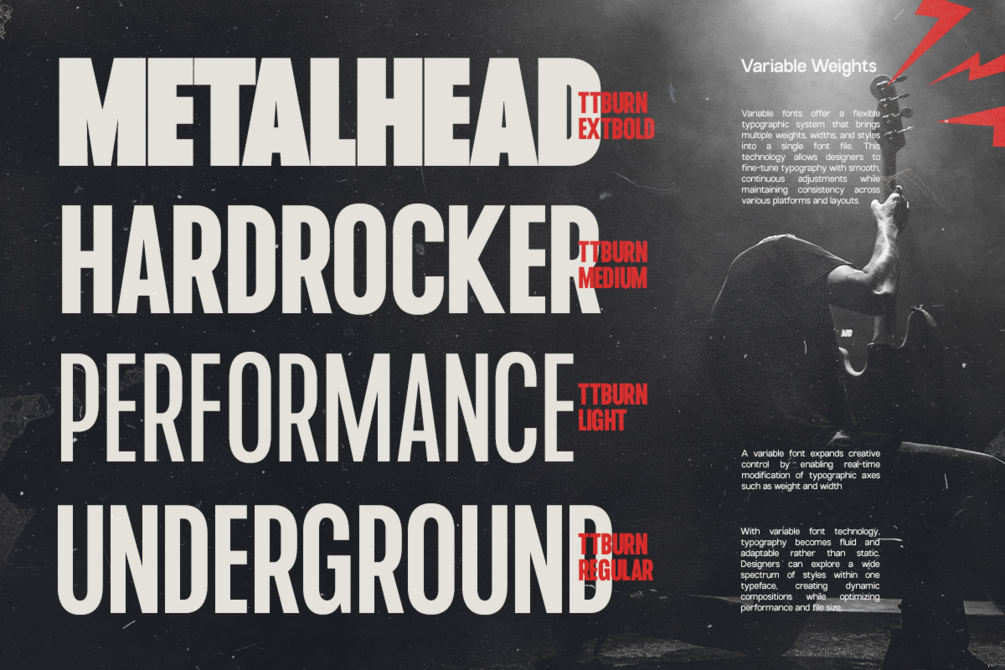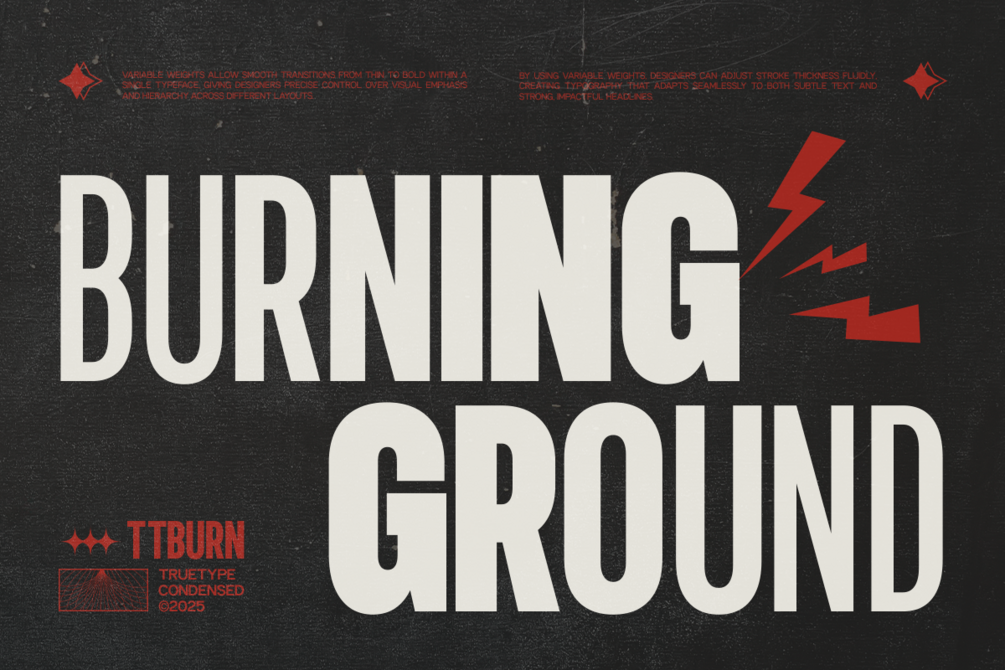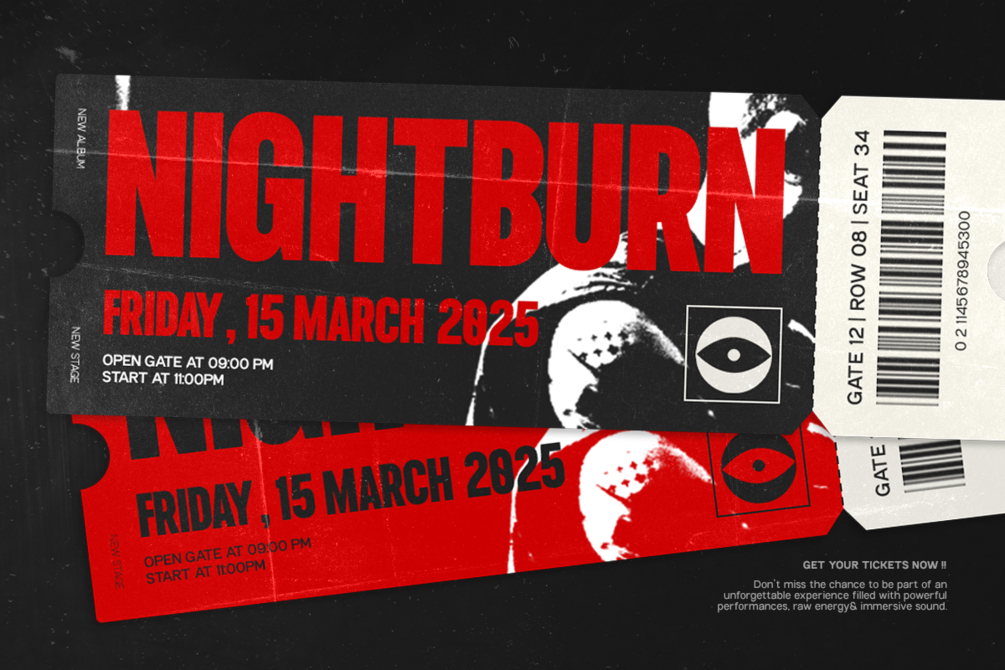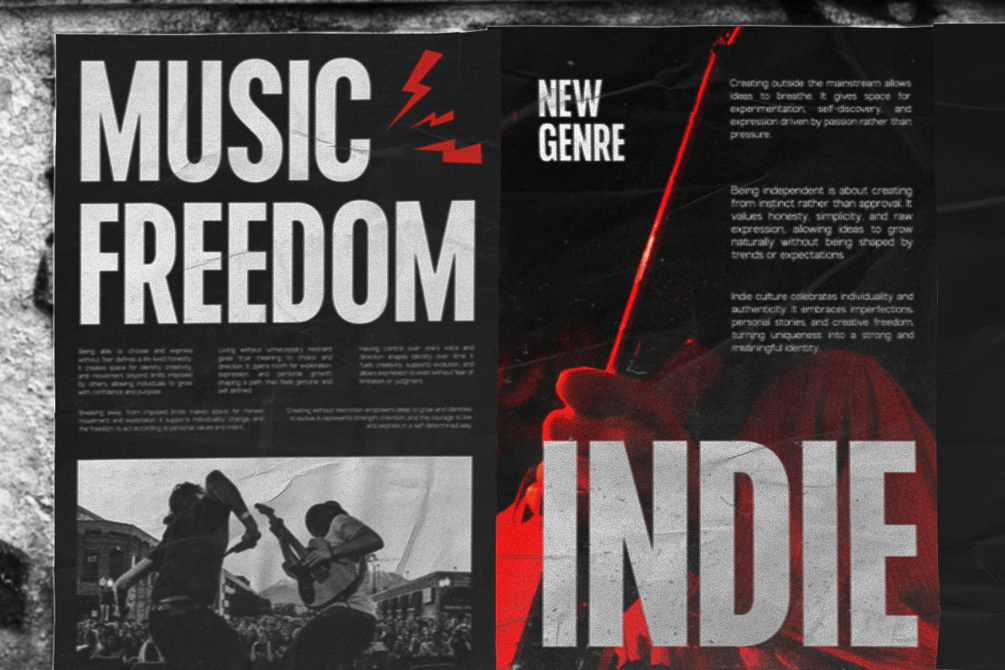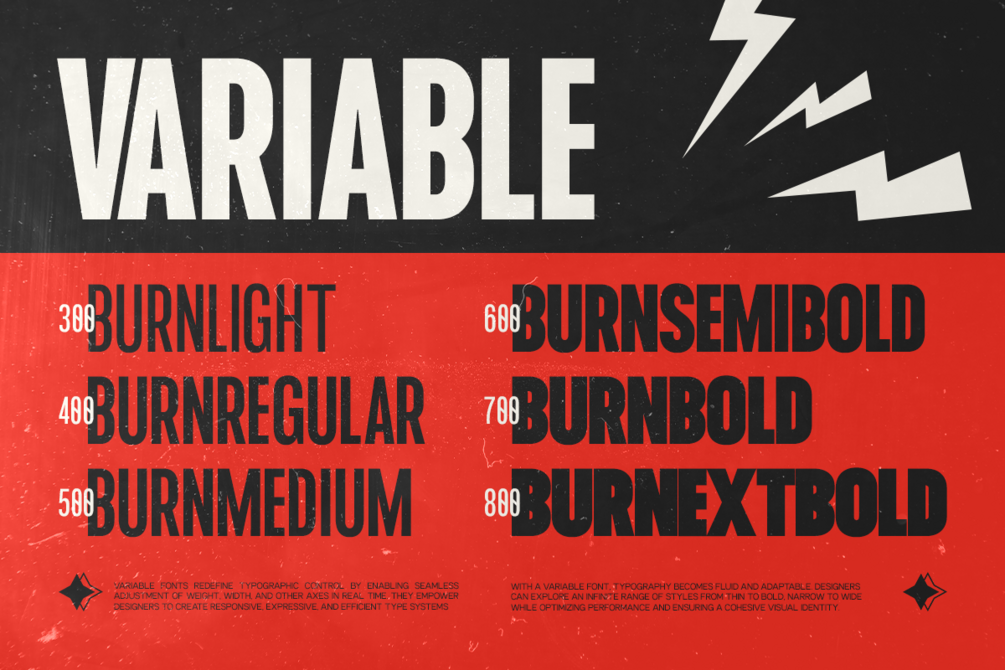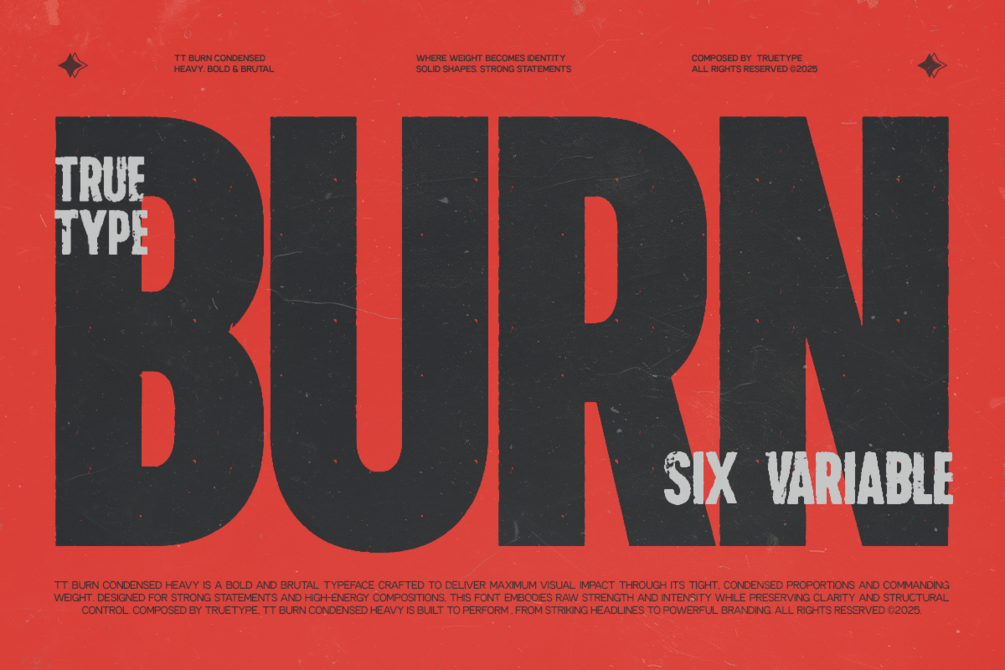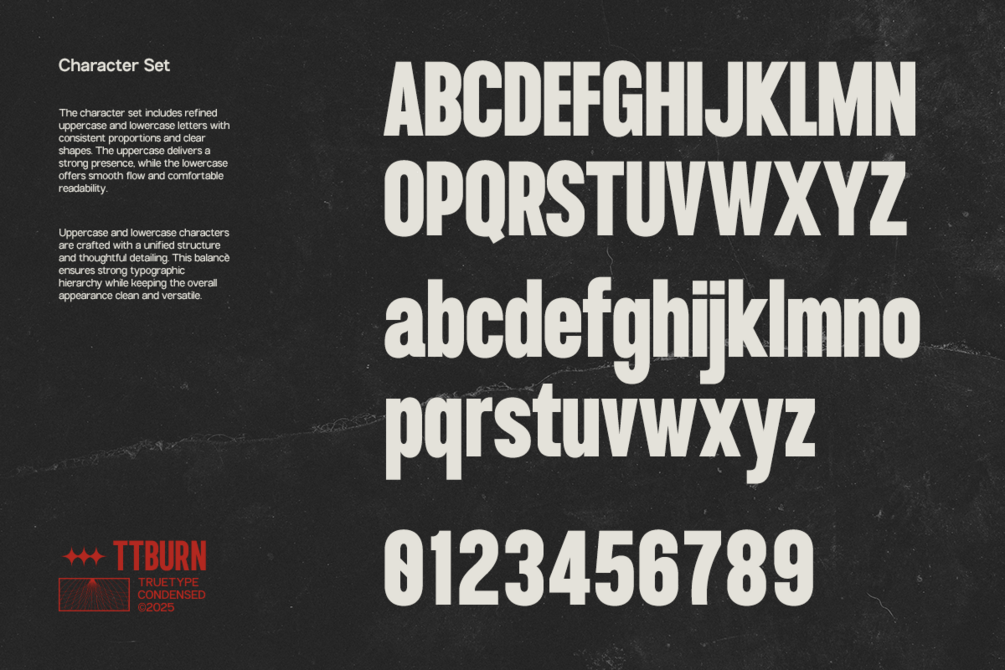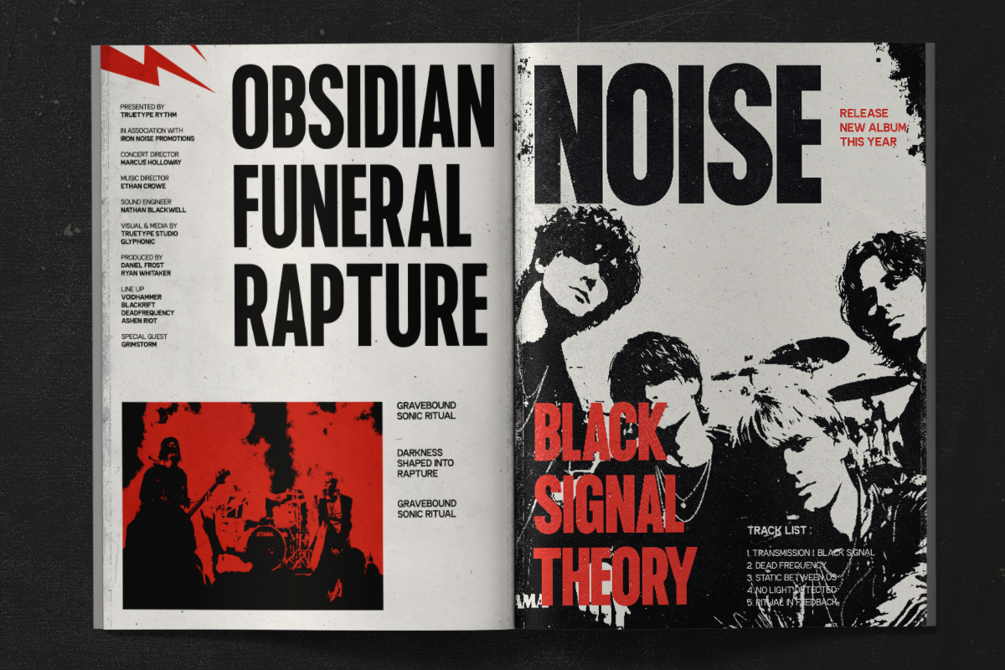
TRT Burn – Bold Condensed Power Sans
TRT Burn is a modern condensed sans serif typeface designed to deliver strong visual impact, efficiency, and clarity for contemporary design needs. Built with a compact width and confident vertical proportions, Burn is optimized for branding, headlines, and space-conscious layouts that demand presence without excess width.
Its condensed construction allows designers to fit more content into tighter spaces while maintaining excellent legibility and a clean, professional appearance. The balanced stroke contrast and refined geometry give TRT Burn a modern, assertive tone that performs consistently across both display and functional text applications.
TRT Burn is crafted as a versatile type system for branding, editorial design, advertising, posters, packaging, web interfaces, UI design, and digital products. Whether applied to bold headlines or structured brand systems, TRT Burn delivers a focused, modern, and reliable typographic voice for print and digital environments.